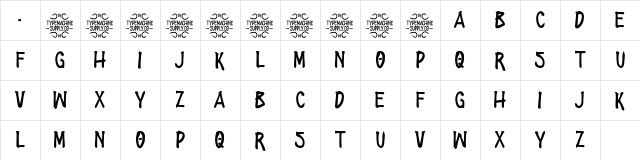
Complete ZOMBIES STATION Regular glyph index. Displaying only characters natively supported by ZOMBIES STATION Regular font.
ZOMBIES STATION is a composed and adaptable typeface that performs quietly and consistently across a wide range of design contexts.